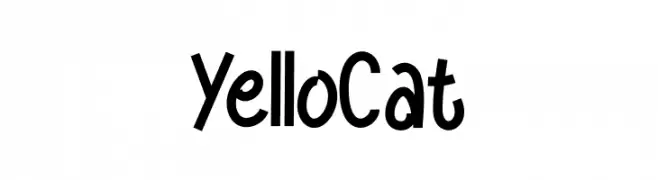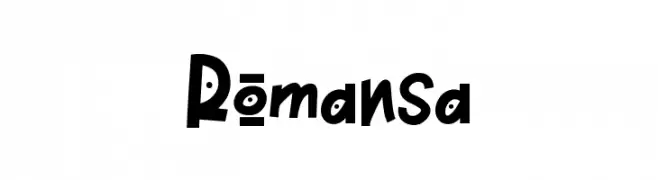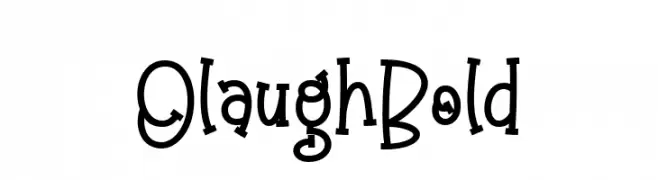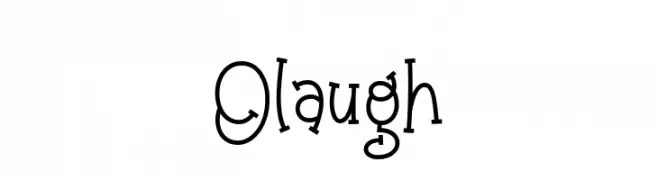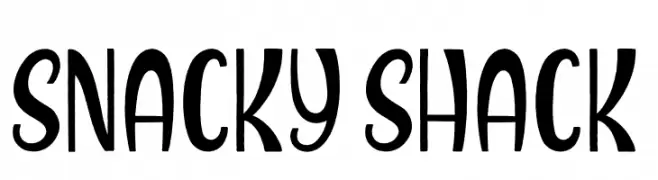
( Fonts by Maria Osborn )
A playful, hand-drawn font with a boxed, doodle-like appearance.
( Fonts by GFR Creative )
A playful, hand-drawn style font with rounded edges and quirky characters.
( Fonts by DM Studio )
A playful, hand-drawn font with quirky serifs and a lively, cartoonish style.
( Fonts by Tigadestd )
A playful, bold font with a quirky, hand-drawn style.
( Fonts by Onne Hermawan )
A bold, playful font with dynamic and quirky letterforms.
( Fonts by Letterena Studios )
A playful, bold font with rounded characters and a quirky bite design.
( Fonts by 7NTypes )
A playful, whimsical font with uneven strokes and quirky serifs.
( Fonts by 7NTypes )
A playful, hand-drawn font with quirky serifs and uneven strokes.
( Fonts by Eddy Goodboy )
A playful, hand-drawn font with quirky embellishments and a casual style.
( Fonts by Jonathan S. Harris )
A playful and quirky font with bold strokes and unique curves.